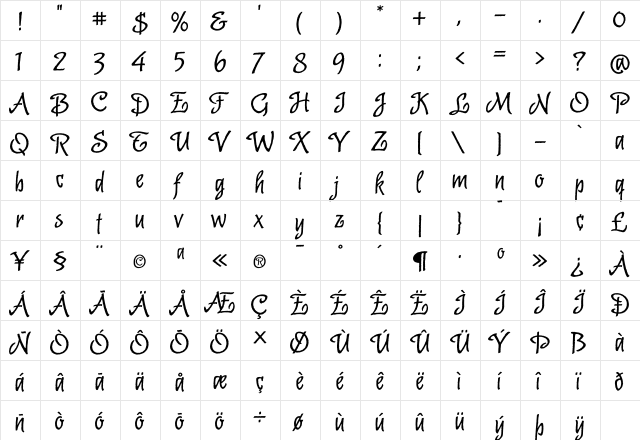
Malambo OT Regular
| Foundry | 2006 鐡ul & koziupa, Sudtipos |
| Designer | Angel Koziupa & Alejandro Paul |
Design Context for Malambo OT Typeface
Malambo OT takes a measured approach to typography — its balanced proportions and neutral character make it a reliable workhorse for both digital and print work.